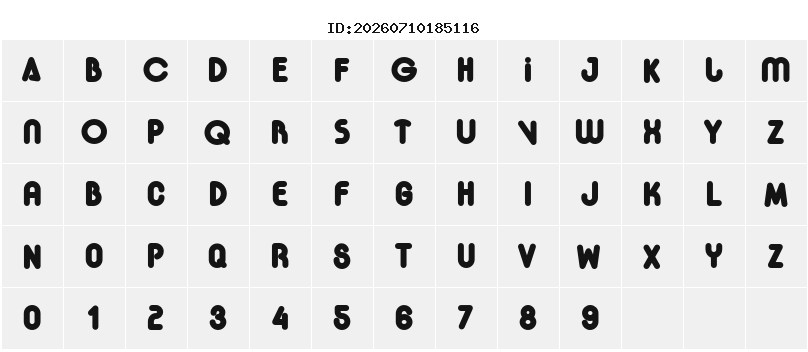
• Font Name: Garoa Hacker Clube
• Designer: Tony de Marco and Diego Maldonado
• Manufacturer: Tony de Marco and Diego Maldonado
About Garoa Hacker Clube.otf
Garoa Hacker Clube.otf is a modern, elegant sans-serif font designed for ultimate readability and visual harmony. Perfect for branding, headlines, web design, and print materials.